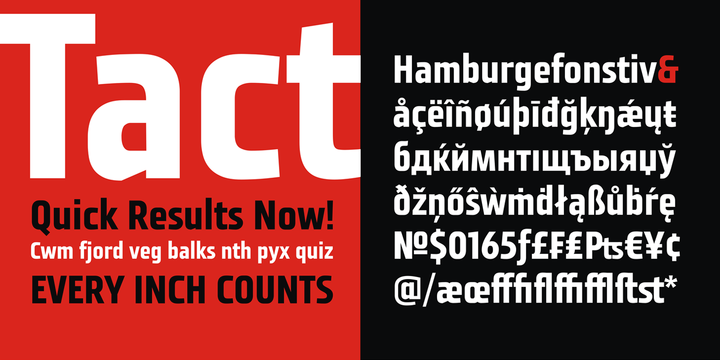
Tact is a geometrically sans serif font, black and condensed looking glyphs, with an alternative glyph set to improve its use in different graphic contexts. It is suitable for use in the fields of science, art, architecture, urban planning, techniques, electronics, advertising, futuristic themes, sport, film, computers, phones, video games, magazines... Contains all Latin and Cyrillic glyphs.